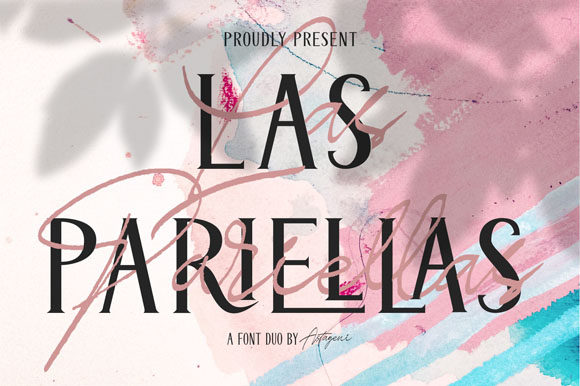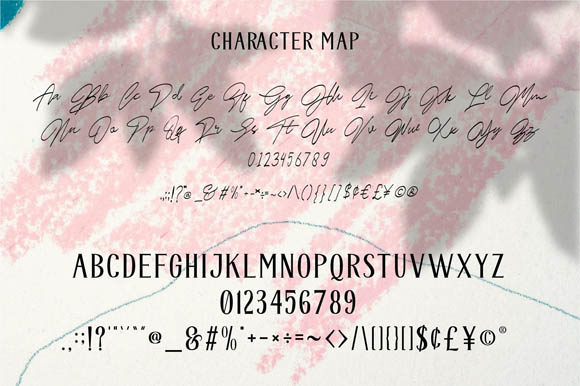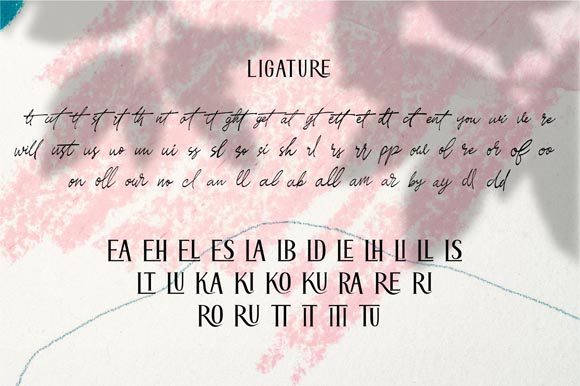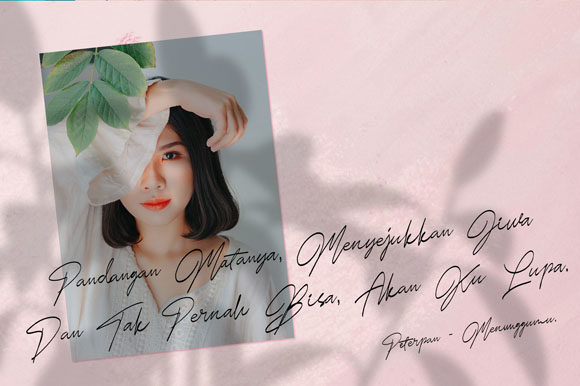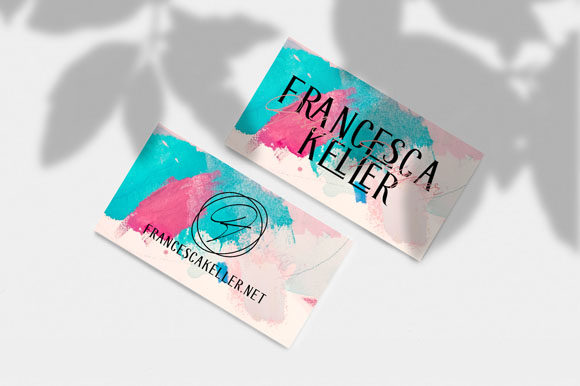
About Las Pariellas Duo Font
Las Pariellas duo is a match made in heaven, the elegance of the serif version perfectly complements the script’s style. Combining these two fonts on your next design will give your next design a modern and fancy feel.
This versatility means that this font can be used in a wide variety of applications from headlines to invitation cards – the only limit is your imagination!